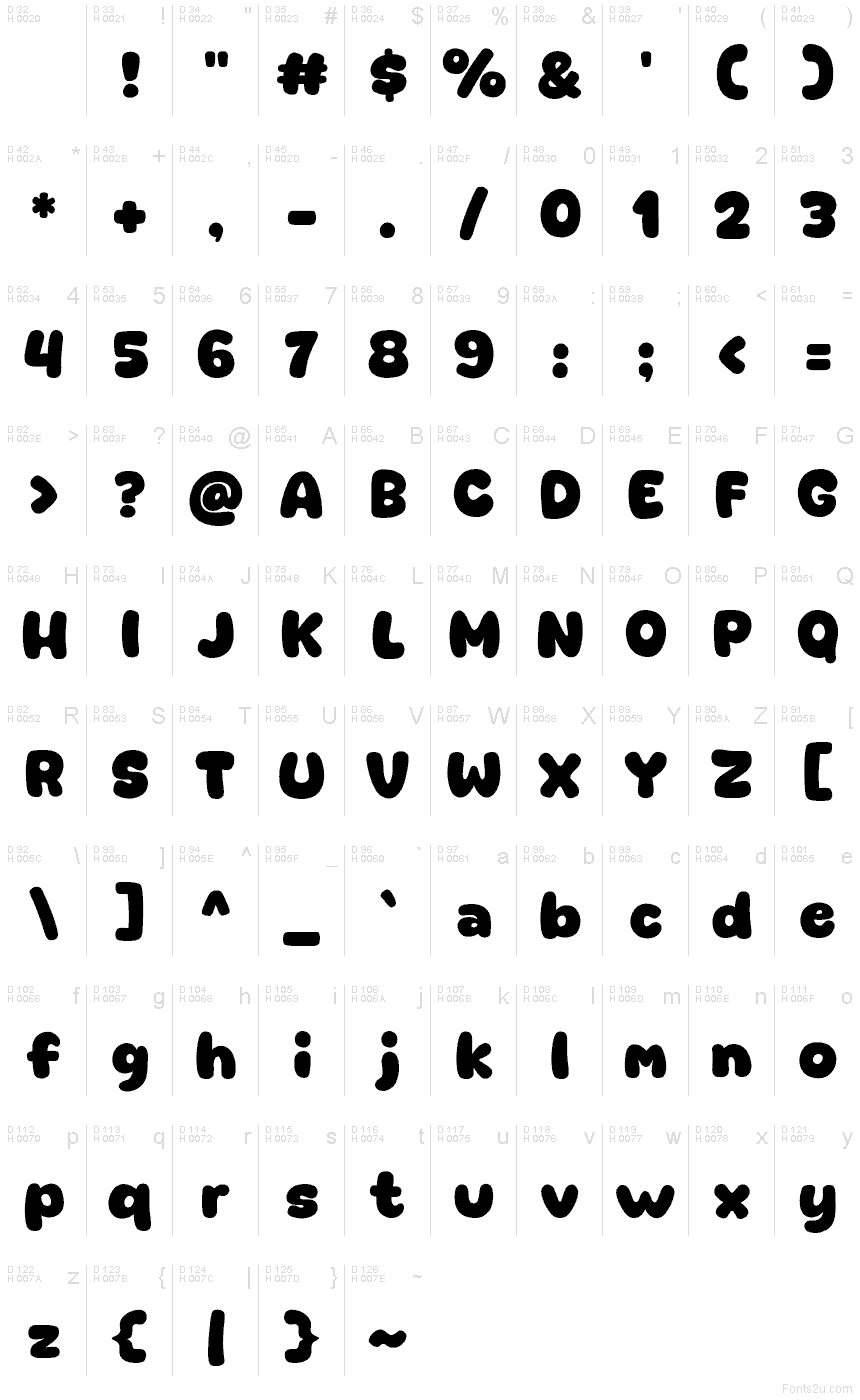
Gimbot
Gimbot font by Khurasan is a bold modern display type. It stands out with a cartoon style that has rounded edges, giving an organic and approachable look. This inviting font has presence and a friendly vibe which makes it suitable for numerous design projects.
Multi-purpose and highly recognizable, this free comic font can be used in many use cases. Possible uses include children’s magazine covers, game designs or even logos. Moreover, it will look stunning on T-shirt designs, posters or food packaging among others.